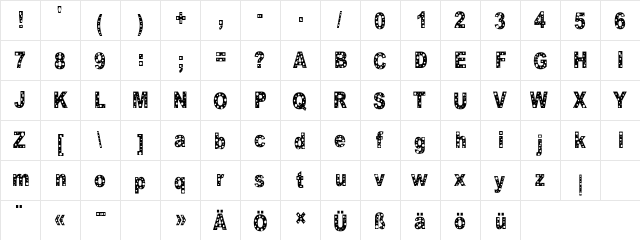
HOLE Regular
Design Context for HOLE Typeface
HOLE is a composed and adaptable typeface that performs quietly and consistently across a wide range of design contexts.